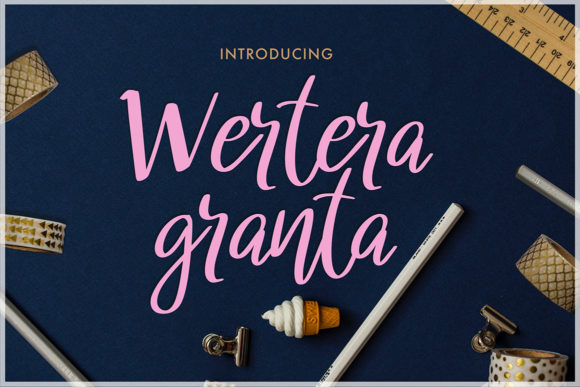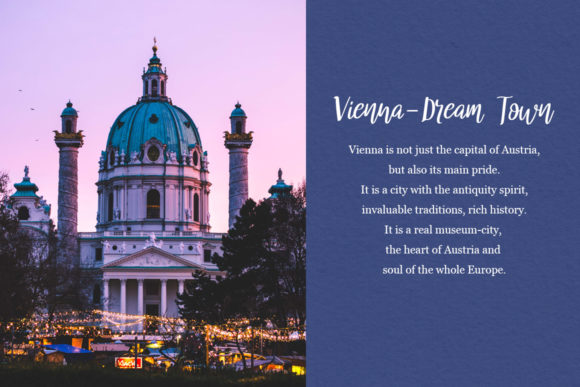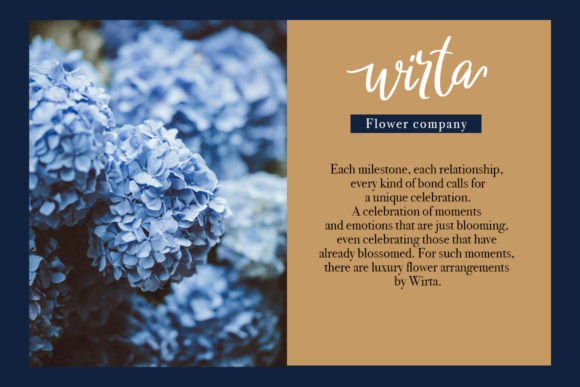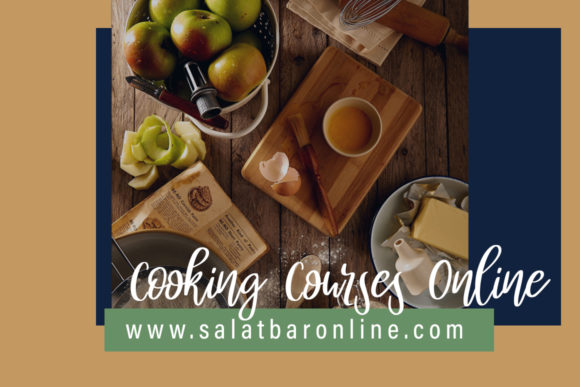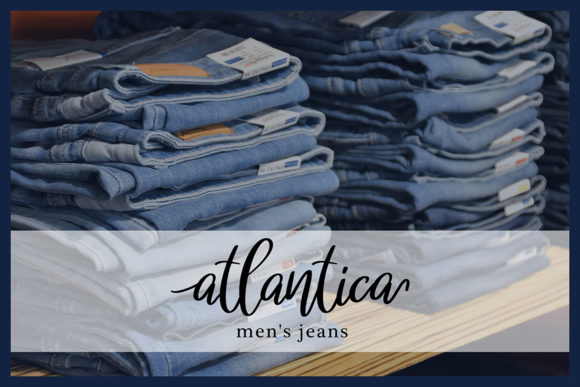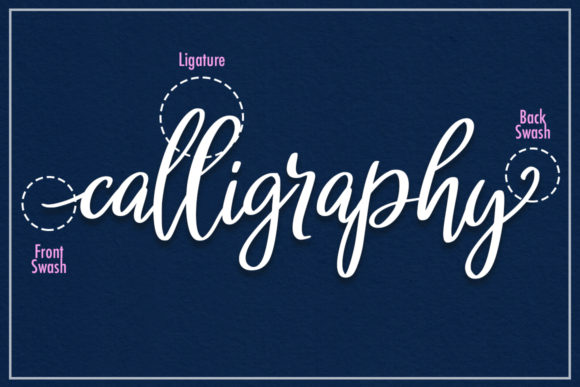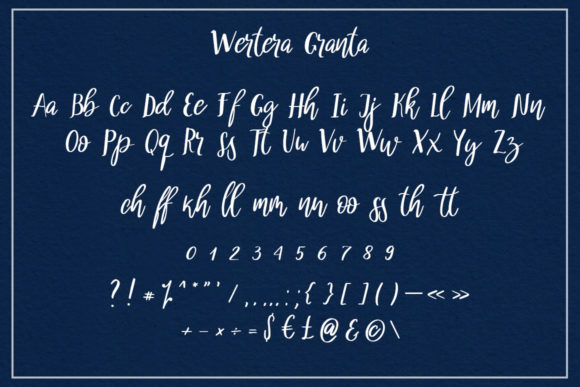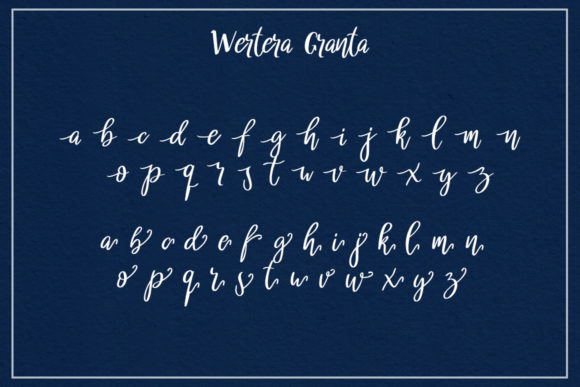
HomeScript FontsWertera Granta Font Script Fonts Wertera Granta Font FacebookXPinterestWhatsApp Wertera Granta Font Poster 2 Wertera Granta Font Poster 3 Wertera Granta Font Poster 4 Wertera Granta Font Poster 5 Wertera Granta Font Poster 6 Wertera Granta Font Poster 7 Wertera Granta Font Poster 8 About Wertera Granta Font Wertera Granta is a beautiful handwritten script font. Fall in love with its playful look & feel! DOWNLOAD ON CREATIVE FABRICAThis font is sold and delivered by Creative Fabrica. Font Canyon may earn a commission if you buy through this link. People also explored Smashing Font Super Overthinking Font Harmony King Font Solihull Font Sweet Dreams Hi Heart Font Smotie Butter Font Sweet Petunia Font The Black Knight Font 381 0 TagsWertera Granta Font Previous articleParis Helen FontNext articleFeeling Homazing Font LEAVE A REPLY Cancel reply Comment: Please enter your comment! Name:* Please enter your name here Email:* You have entered an incorrect email address! Please enter your email address here Website: Save my name, email, and website in this browser for the next time I comment. Personal Use Free Barokah Personal Use Free Read more about this font William Personal Use Free Read more about this font Concre Personal Use Free Read more about this font Jilliant Personal Use Free Read more about this font BLOG Fonts That Capture the Spirit of New York City New York City is more than just a place—it’s an experience, a rhythm, a visual language... Top 7 Google Fonts Alternatives for Faster and Privacy-Friendly Web Design (2025) How to Cut Any Font on Cricut: Convert a Font to SVG (Free) Free vs Paid Fonts: Why Investing in Premium Fonts Is Worth It